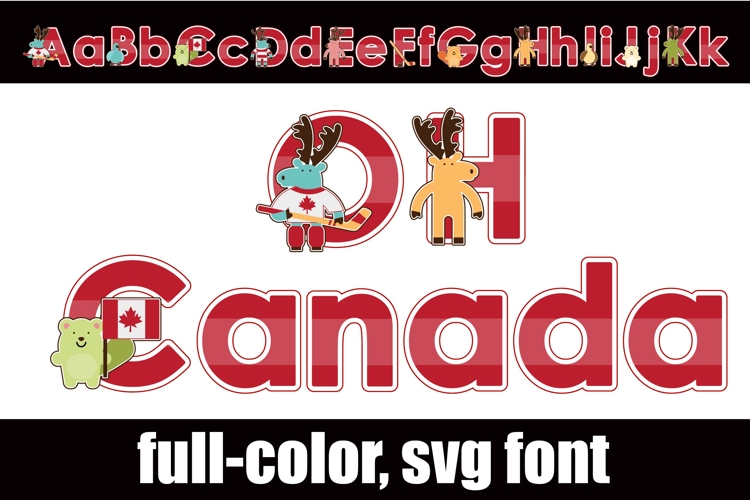
Oh Canada Color Font
This full-color, sans serif font sports the red and white stripes of Canada's flag and several Canadian animals on the uppercase.